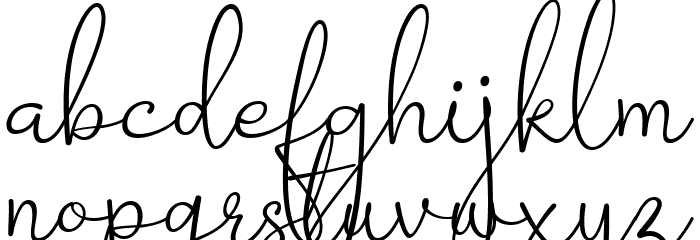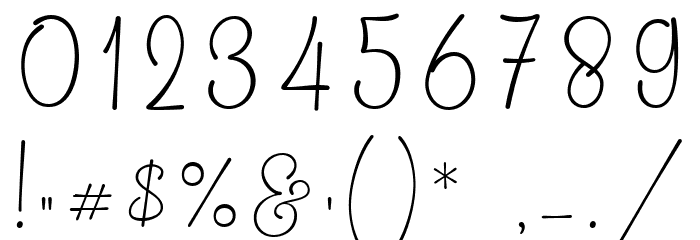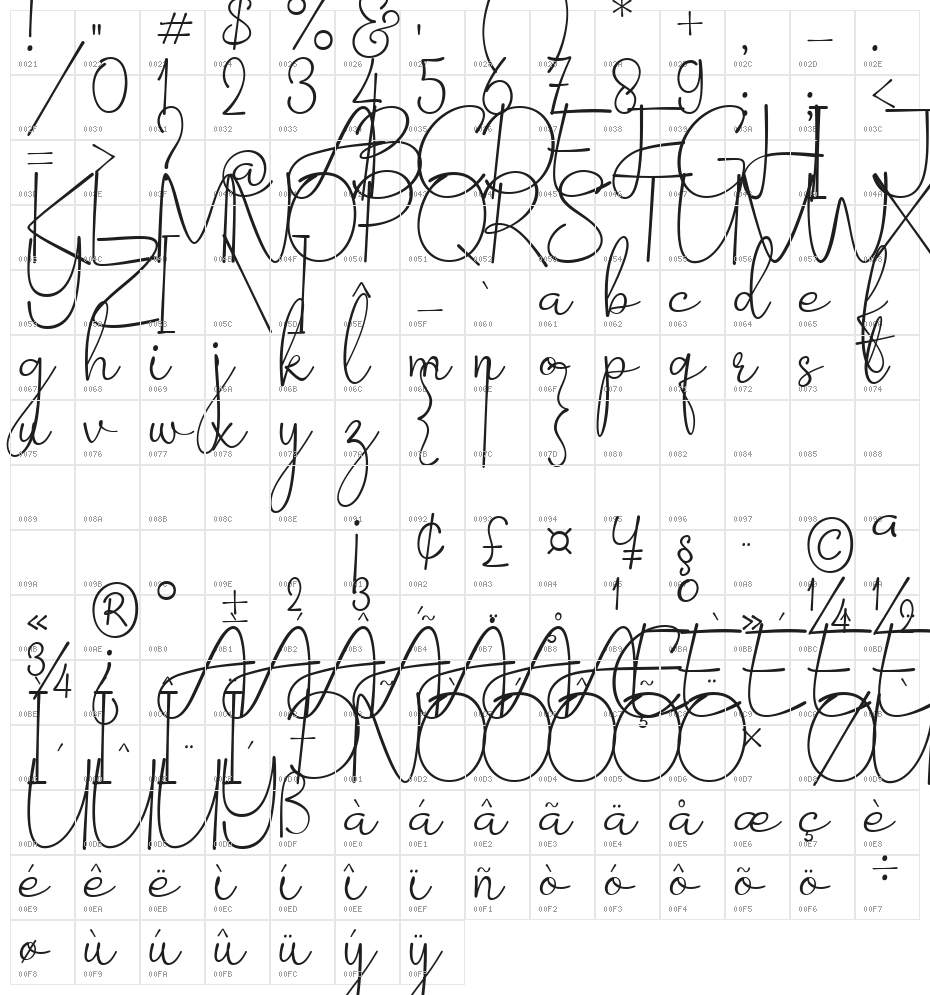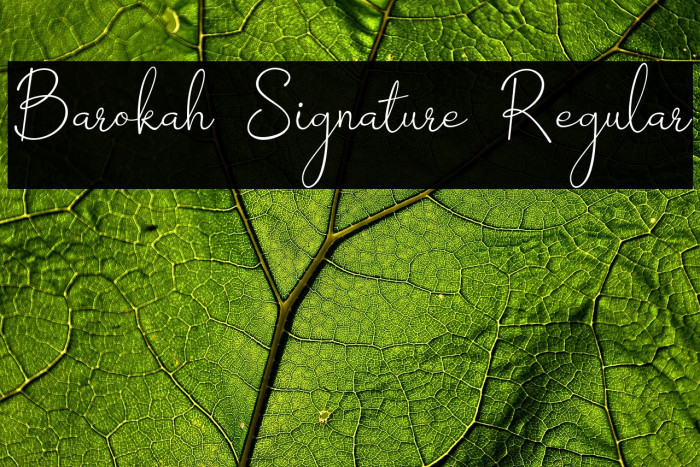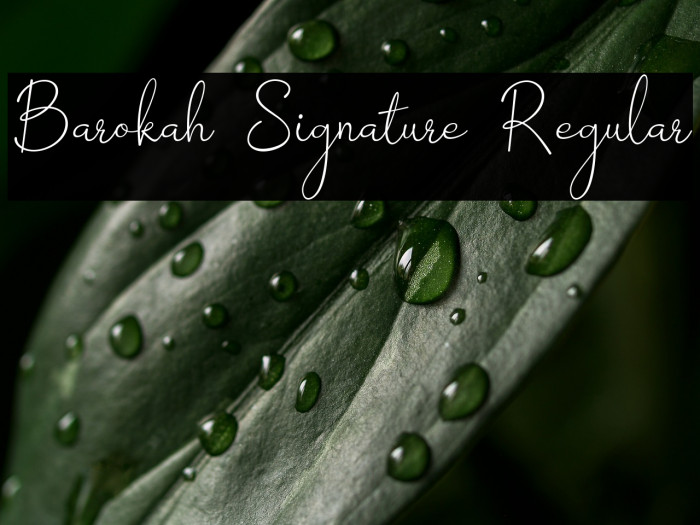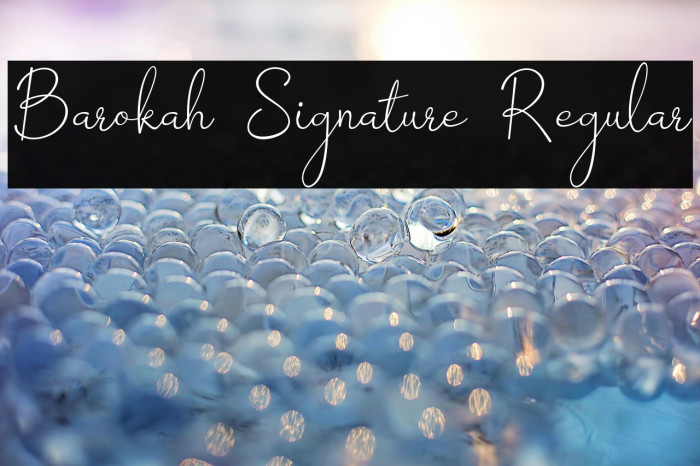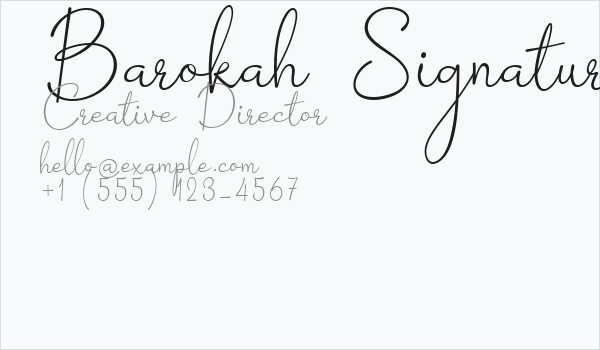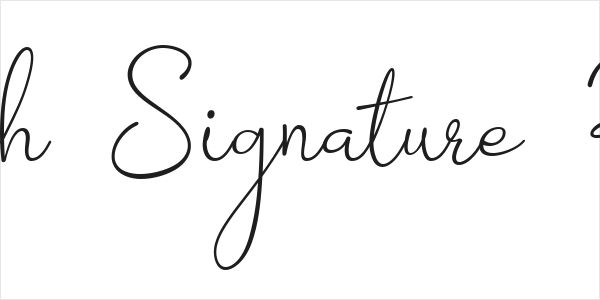
Barokah Signature Regular Font
This font features a delicate and elegant script style, characterized by its flowing, cursive letters that mimic the fluidity of handwriting. The uppercase letters are slightly more structured, providing a nice contrast to the more freeform lowercase letters. The numbers and special characters maintain the same graceful style, ensuring consistency across all characters. The thin strokes and gentle curves give it a sophisticated and modern feel, making it suitable for a variety of design projects that require a personal touch.
A graceful, cursive script font with a modern, handwritten style.
- Proposed Projects: Ideal for wedding invitations, personal branding, greeting cards, and elegant logos.